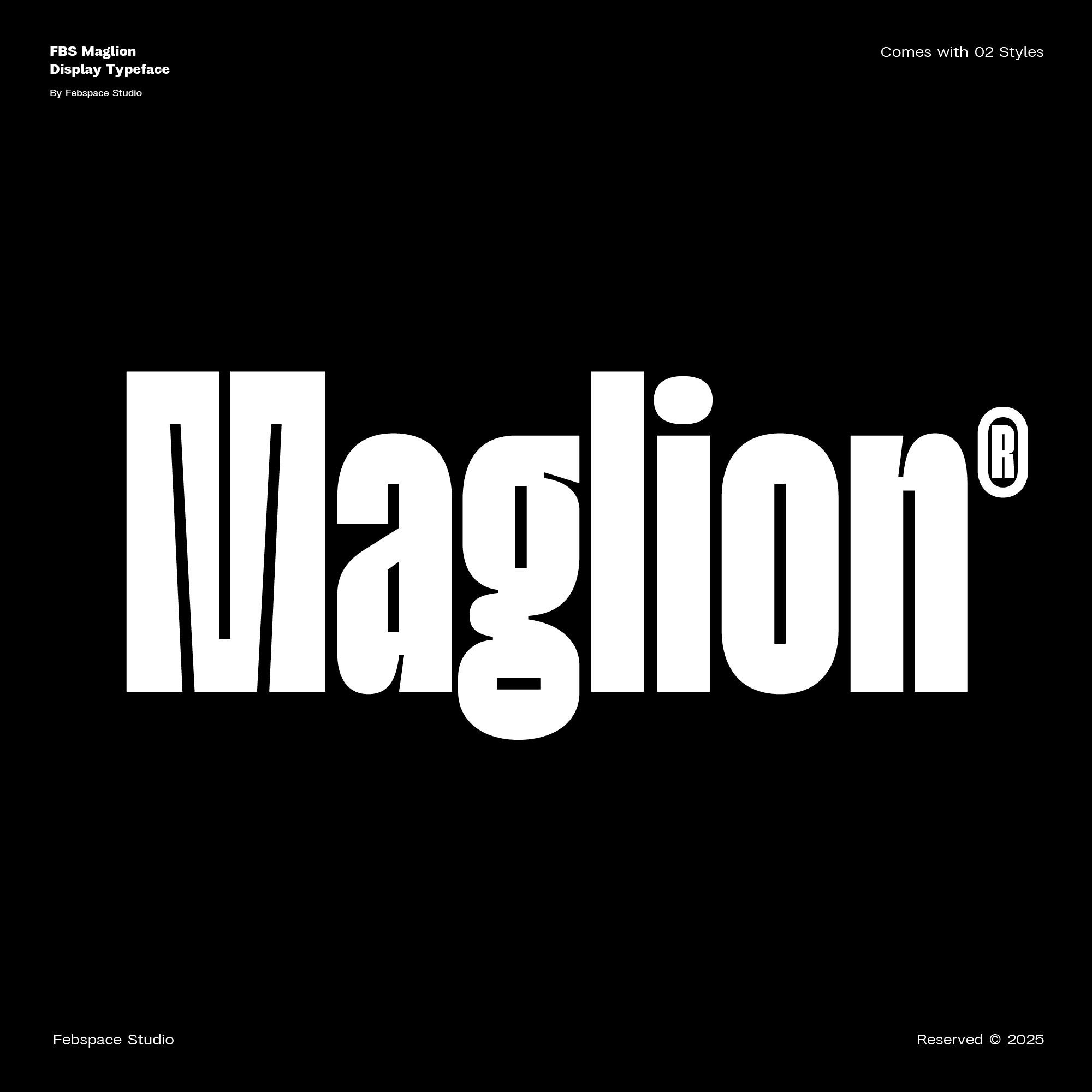
<h3>FBS Maglion: A Modern Condensed Typeface with Unique Inktraps</h3><p>FBS Maglion offers a contemporary take on typography, showcasing distinctive functional inktraps that enhance clarity and stylistic character. Available in two dynamic styles—Regular and <em>Slanted</em>—this typeface not only adds a dash of boldness to your designs but also ensures high versatility, making it suitable for a myriad of creative ventures. Whether in editorial design, fashion branding, packaging, or posters, FBS Maglion brings adaptability without sacrificing its distinctive flair.</p><p> </p><p><strong>Key Features</strong></p><ul><li><p>2 Styles: Regular & <em>Slanted</em></p></li><li><p>Condensed structure with unique inktraps</p></li><li><p>Perfect for headlines, branding, and editorial design</p></li><li><p>Modern, bold, and versatile</p></li></ul><p></p>